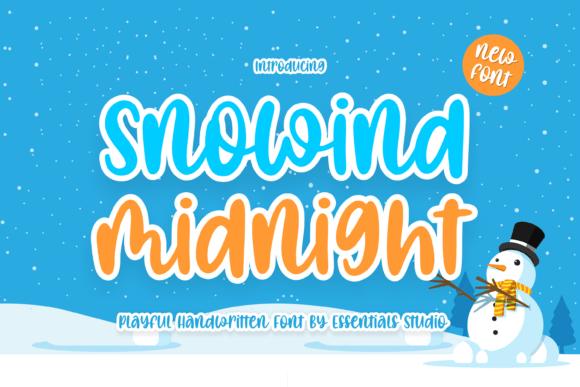
Dive into the realm of enchanting typography with Snowind Midnight Font, a captivating script that dances across your creative projects with playful elegance. Crafted by the talented designers at Essentials Studio, Snowind Midnight is not just a font; it's an artistic expression that adds a touch of whimsy to your designs.
Step into a world where words come alive, where every letter is a stroke of artistry and every phrase a captivating story. Snowind Midnight is perfect for product packaging, branding projects, magazines, social media posts, wedding invitations, and any creative endeavor where you want your words to make a lasting impression.
With Snowind Midnight, you can create logos that exude a handwritten charm, product labels that whisper elegance, and social media posts that pop with personality. It's the perfect font for adding a personal touch to your creative endeavors and making your words dance off the page.
So, why settle for ordinary fonts when you can embrace the magic of Snowind Midnight? Let your words take center stage, wrapped in the beauty of this playful script. Indulge in the joy of creating with Snowind Midnight and watch your designs transform into captivating works of art.